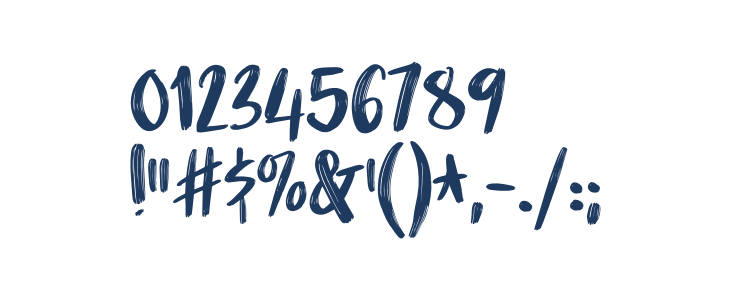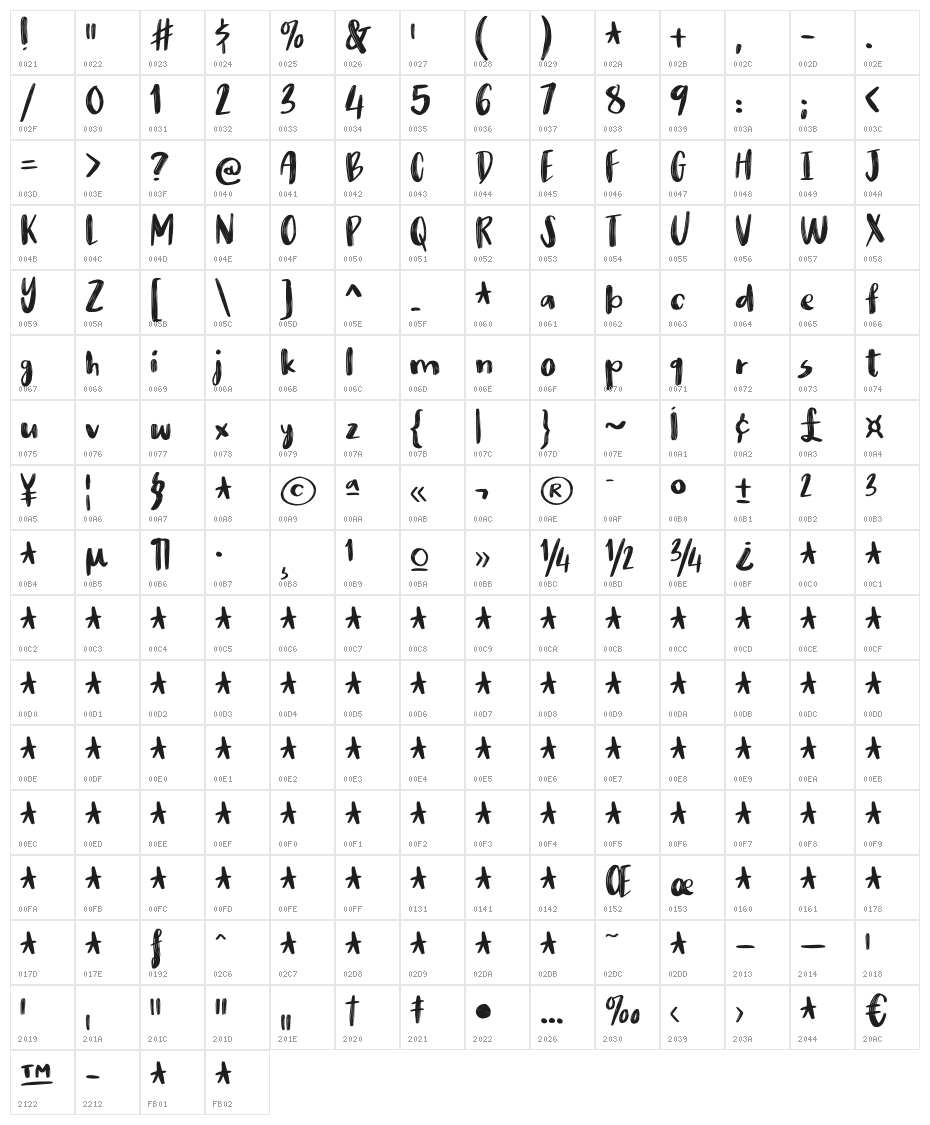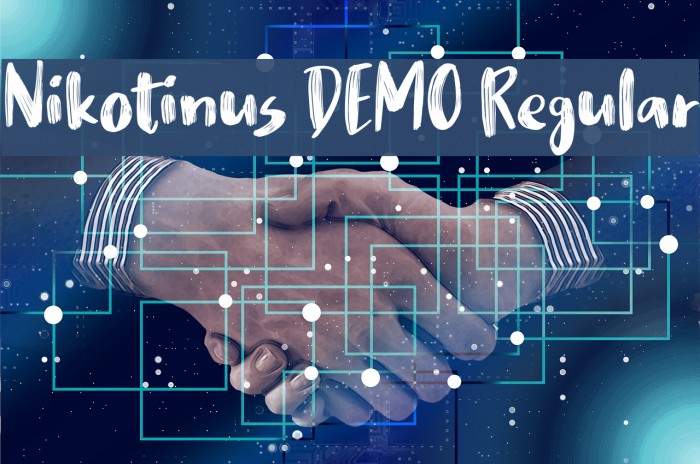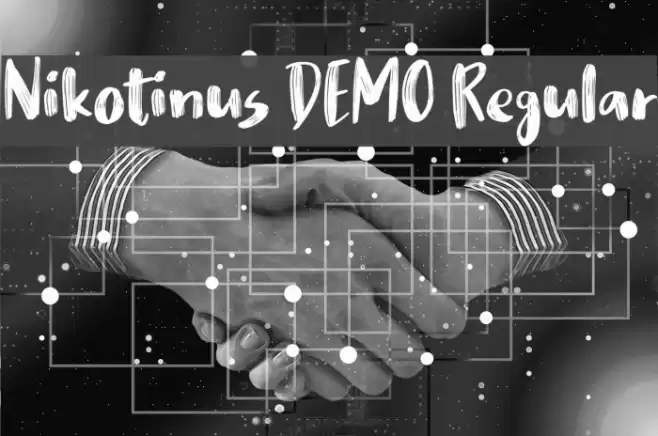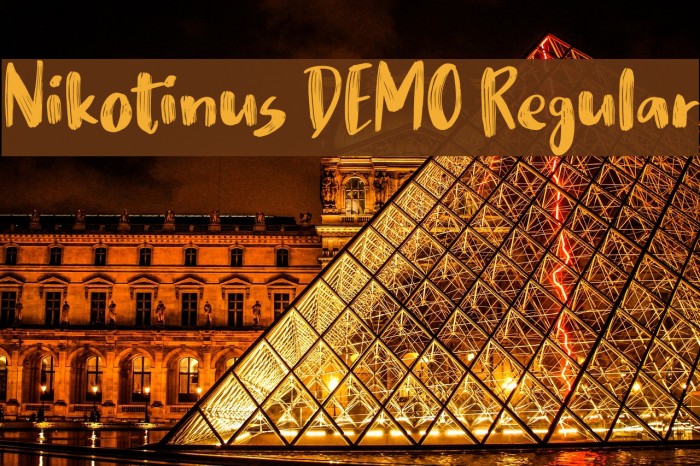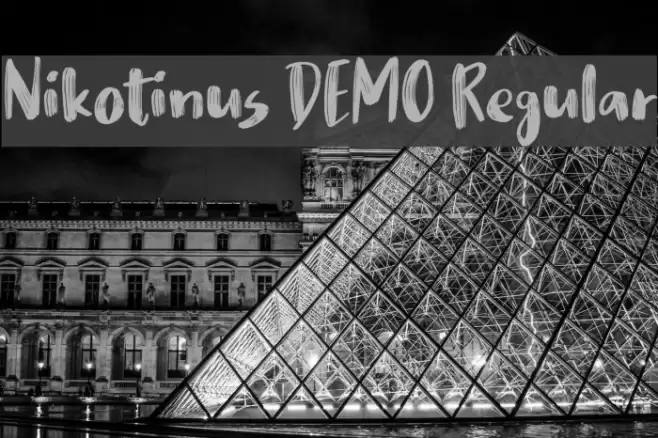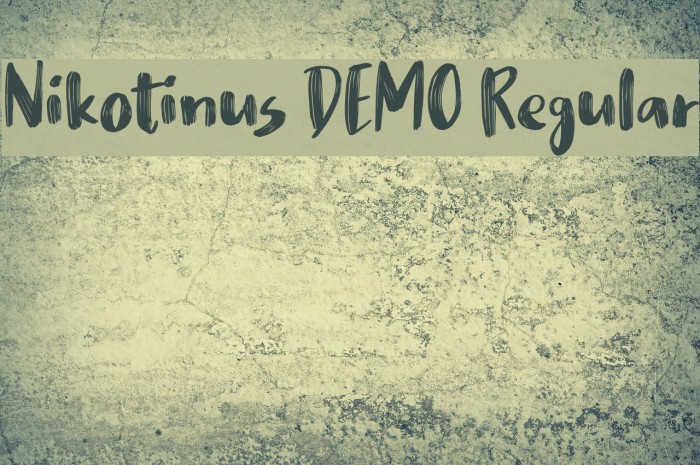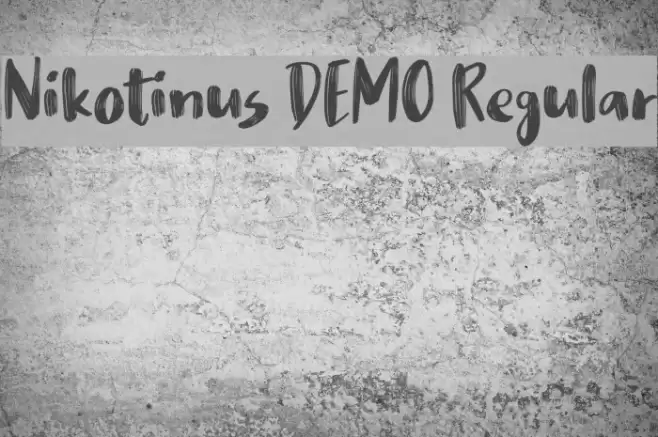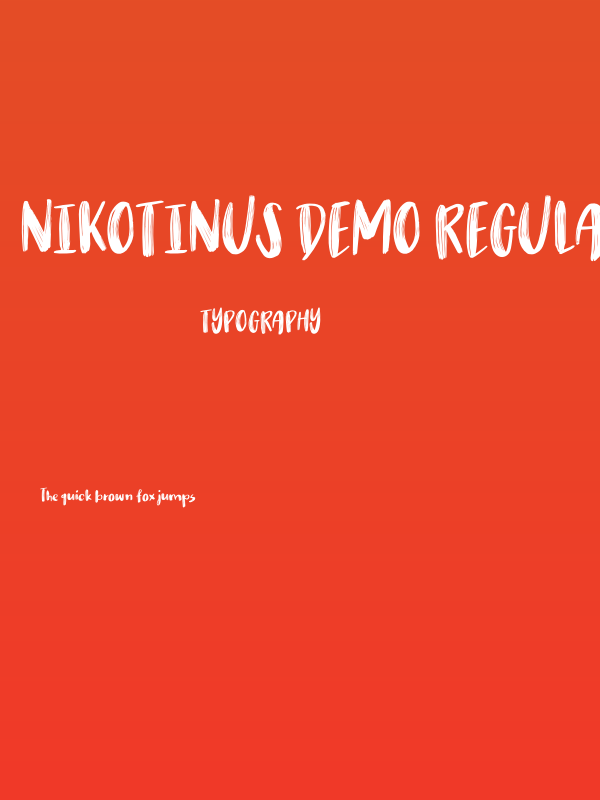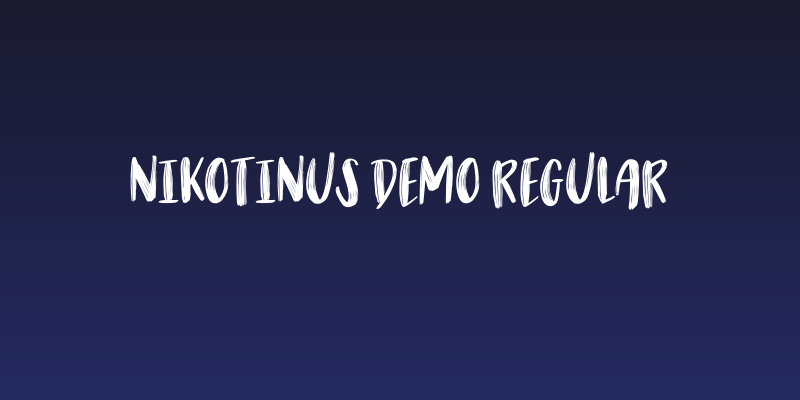
Nikotinus DEMO Regular Font
Nikotinus DEMO Regular Description
This font features a bold, expressive style with a hand-painted appearance. The characters are dynamic and energetic, with thick, uneven strokes that give a sense of movement and creativity. The uppercase and lowercase letters maintain a consistent style, while the numbers and special characters complement the overall aesthetic. The brush-like texture adds a raw, artistic feel, making it ideal for projects that require a personal touch or a statement piece.
| Overall Style | Artistic, Expressive |
| Proposed Projects | Ideal for posters, album covers, branding, and any creative projects that require a bold, artistic touch. |